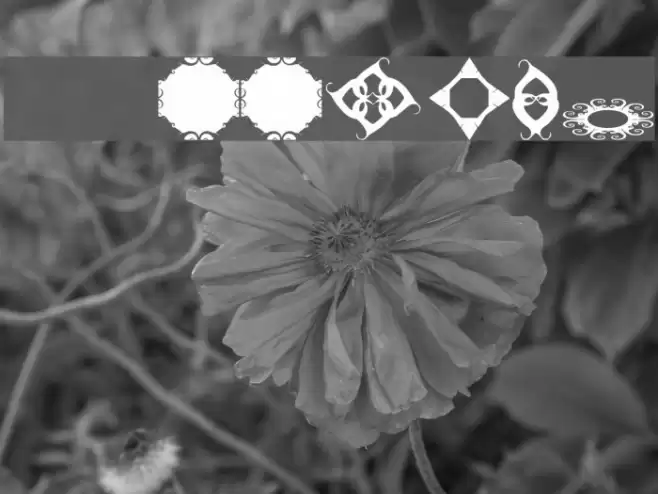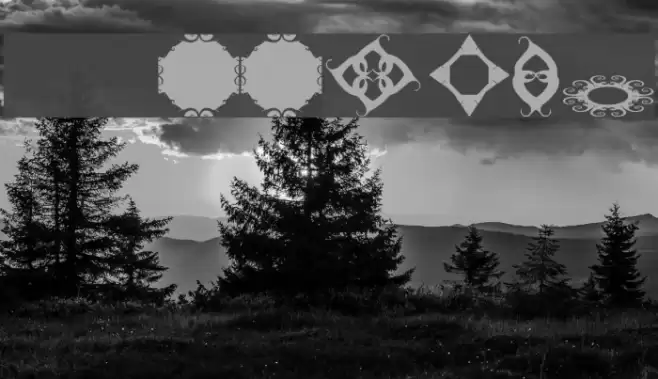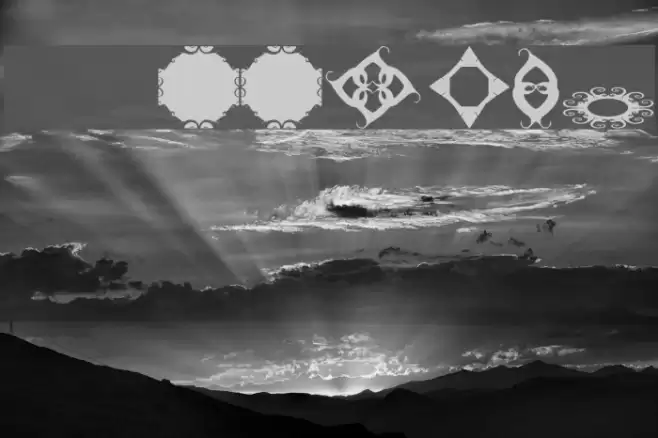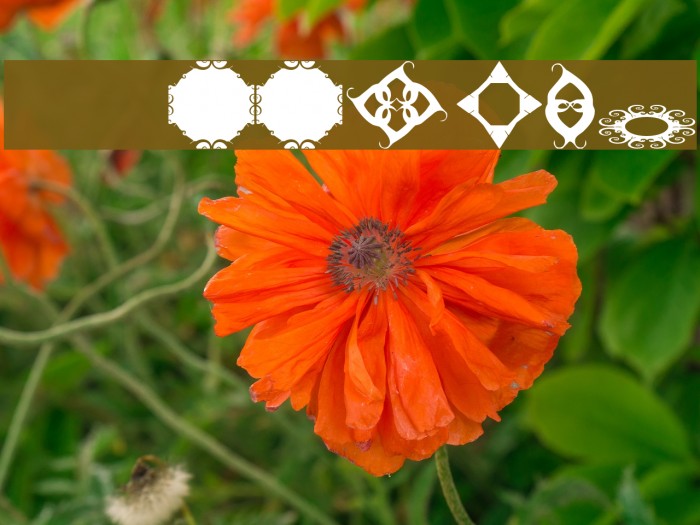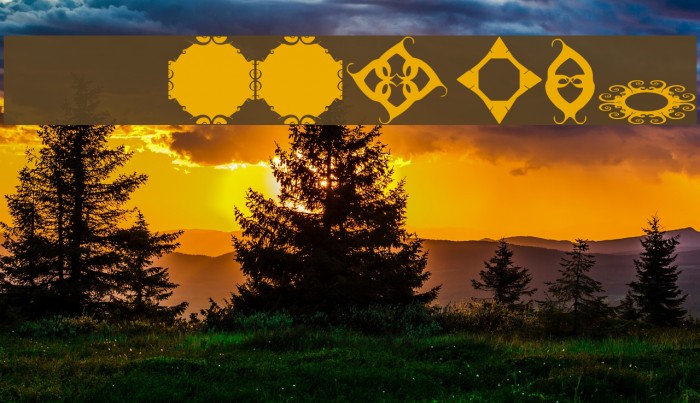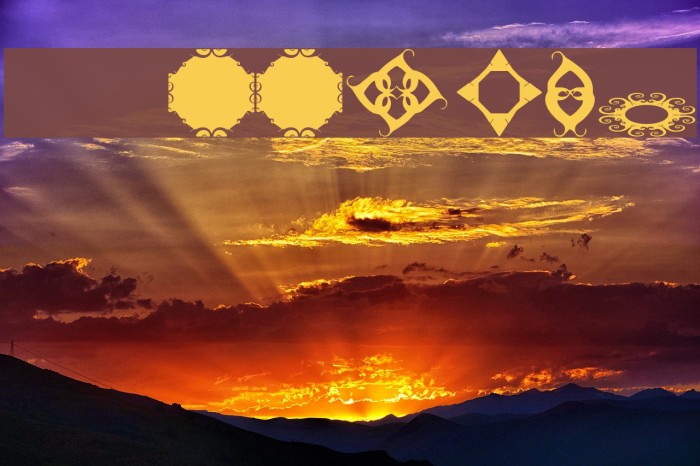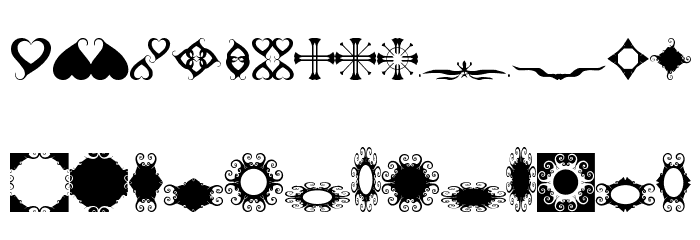
BRDoodles Font
BRDoodles Description
This collection features a variety of intricate decorative elements, each with a unique design that combines hearts, diamonds, crosses, and ornate swirls. The elements are highly detailed, showcasing a blend of symmetrical and asymmetrical patterns. The designs are bold and eye-catching, making them suitable for embellishing projects that require a touch of elegance and sophistication. The use of negative space within the designs adds depth and complexity, allowing them to stand out as individual pieces or as part of a larger composition.
A collection of intricate and ornate decorative elements with bold, symmetrical designs from Images & Symbols fonts.
- Proposed Projects: Ideal for wedding invitations, greeting cards, scrapbooking, and decorative borders in graphic design projects.
- Use Case: Logos, Decorative elements, Invitations